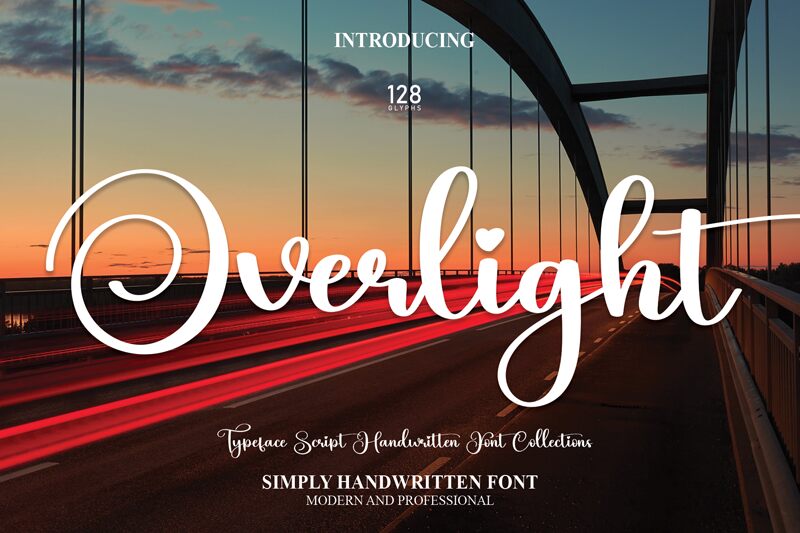
Overlight
Overlight, by Scratchones, is a mesmerizing calligraphy font that adds elegance and sophistication to any project.
With its semi-light weight, this font exudes grace and delicacy, making it perfect for wedding invitations, romantic novels, or high-end fashion magazines. Its fluid strokes and intricate details create a sense of artistry that captivates the reader's attention. Whether you're designing luxurious branding materials or crafting poetic quotes for social media posts, Overlight will bring an air of refinement to your work.
Elevate your designs with this enchanting calligraphy typeface.
With its semi-light weight, this font exudes grace and delicacy, making it perfect for wedding invitations, romantic novels, or high-end fashion magazines. Its fluid strokes and intricate details create a sense of artistry that captivates the reader's attention. Whether you're designing luxurious branding materials or crafting poetic quotes for social media posts, Overlight will bring an air of refinement to your work.
Elevate your designs with this enchanting calligraphy typeface.